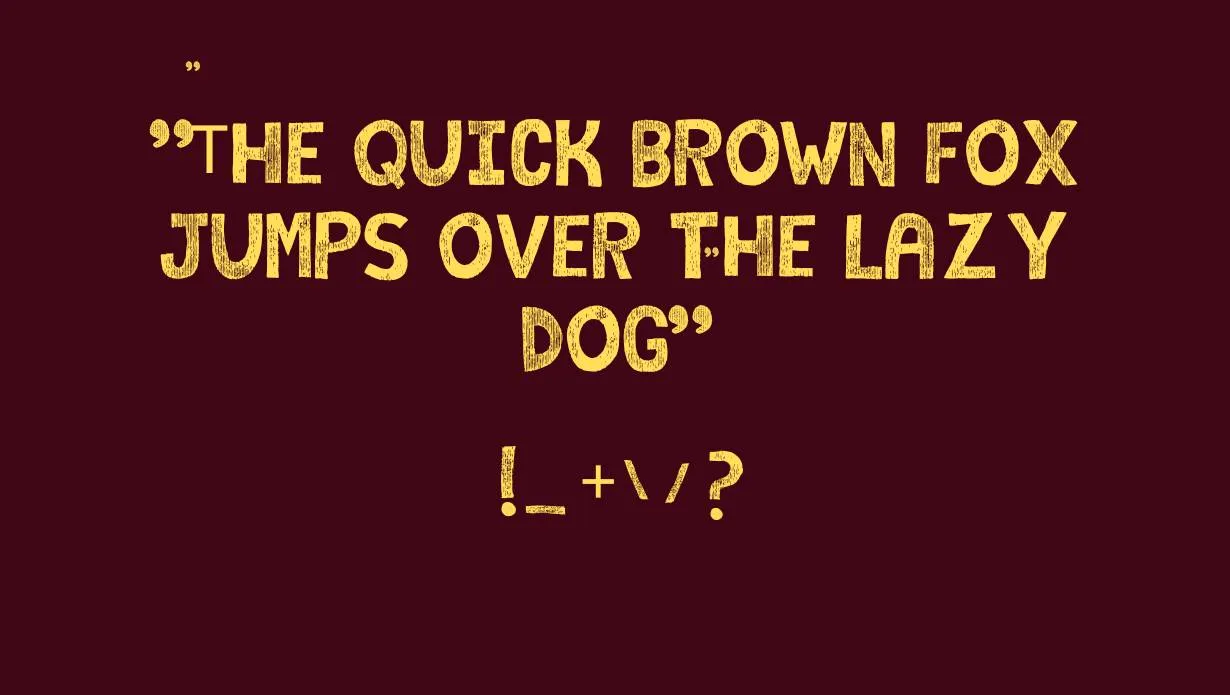
The Camp Kids font embodies a playful and child-friendly style, often featured in children’s books, educational materials, or designs targeting a younger audience.
Its fun and quirky appearance injects a sense of playfulness and friendliness into the text, making it appealing to kids and adding a joyful vibe to projects aimed at the younger demographic.